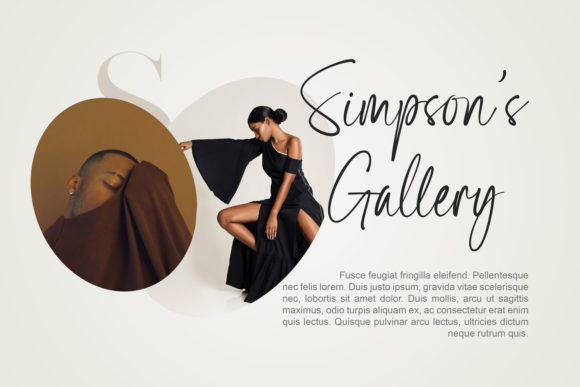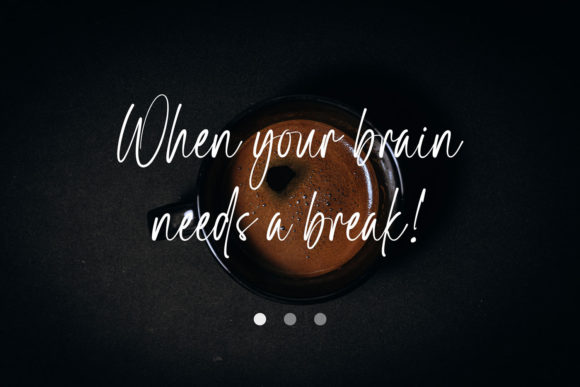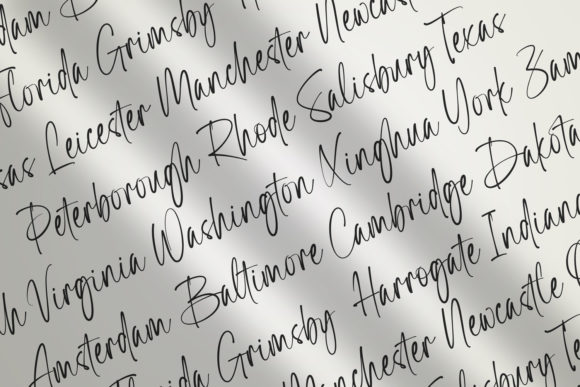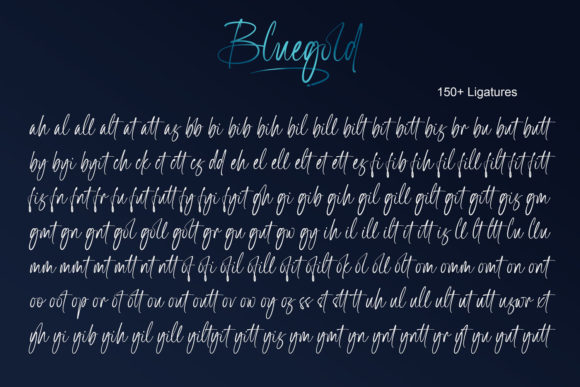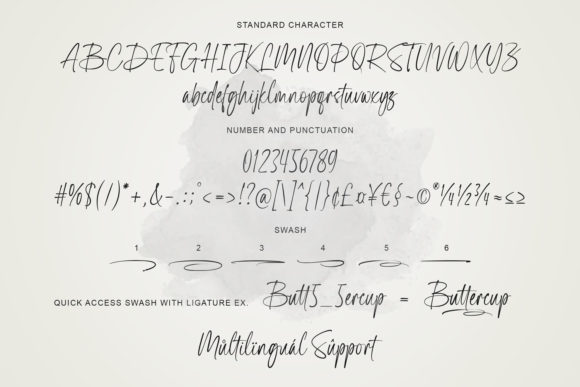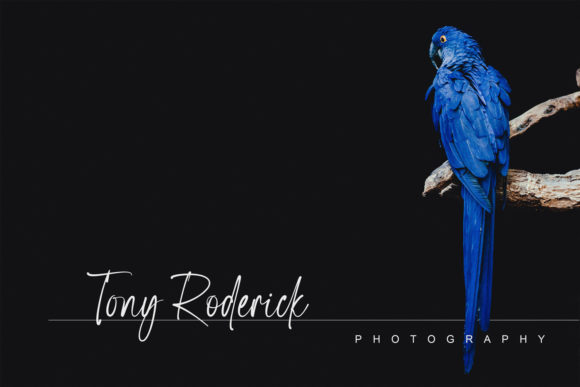
The Quest for the Perfect Font: Discovering Bluegold
I still remember the frustration of working on a design project, hours spent searching for the perfect font to bring my vision to life. My client wanted a modern, elegant script font that would make their brand stand out. I scoured the internet, tried countless fonts, but nothing seemed quite right. That was until I stumbled upon Bluegold Font. ✨
Bluegold is a beautiful and flowing script font with a modern style. This gentle font will look gorgeous on a variety of design ideas. This font is PUA encoded which means you can access all of the glyphs and swashes with ease!
An Honest Review of Bluegold Font
- ✨ Elegant and modern script style that’s perfect for a variety of design projects
- 💫 Highly legible, even at smaller font sizes
- 🎨 Versatile and can be used for both digital and print designs
While Bluegold Font is an excellent choice, there are a few minor limitations to consider: ⚠️
- 🤔 Some users may find the font a bit too delicate for certain design applications
- ⚠️ May not be suitable for very small font sizes or low-resolution images
The Designer Inspiration Behind Bluegold Font
The designer behind Bluegold Font was inspired by the beauty of handwritten scripts and the elegance of modern typography. With a passion for creating unique and versatile fonts, the designer aimed to craft a font that would be both stylish and functional. 💫
A: PUA (Private Use Area) encoding allows font users to access a wide range of glyphs, swashes, and stylistic alternates, making it easier to create unique and customized designs.
Q: Is Bluegold Font suitable for body text or long-form content?
A: While Bluegold Font is highly legible, it’s primarily designed for display purposes. For body text or long-form content, consider using a more traditional serif or sans-serif font.